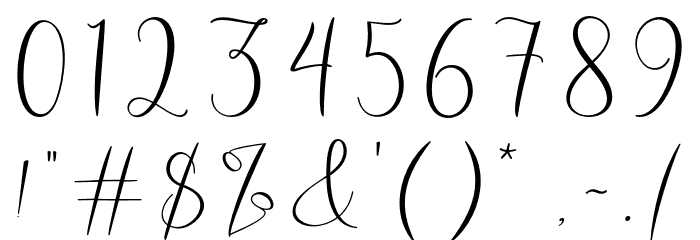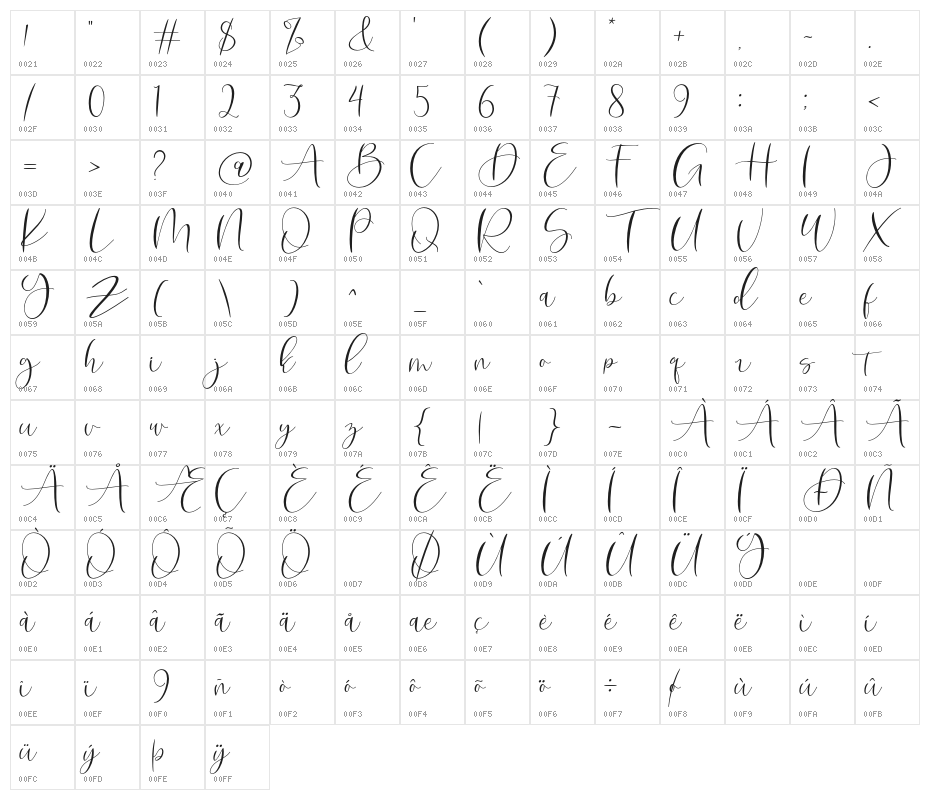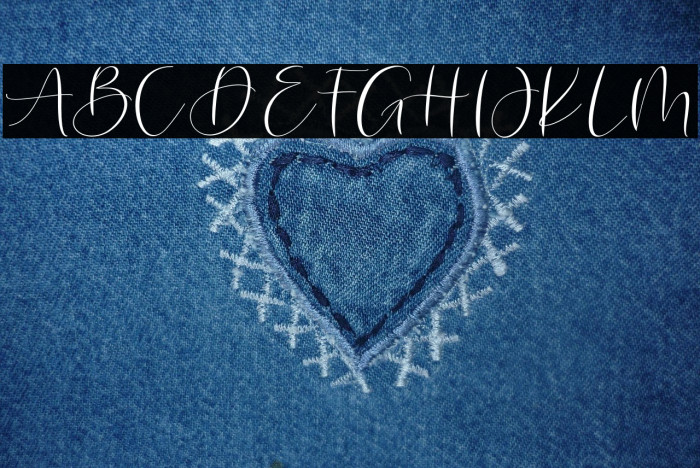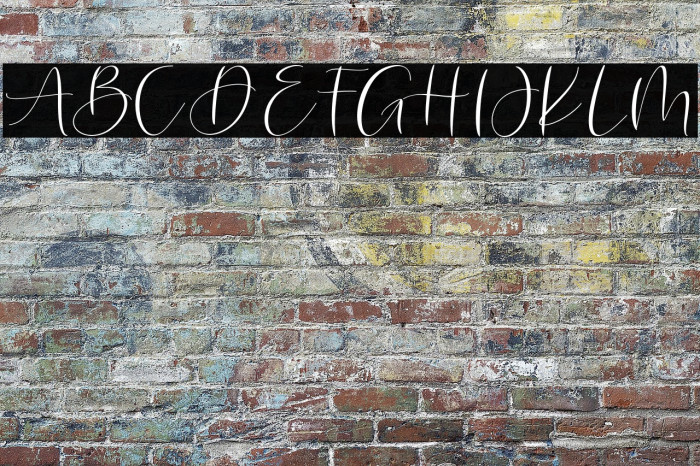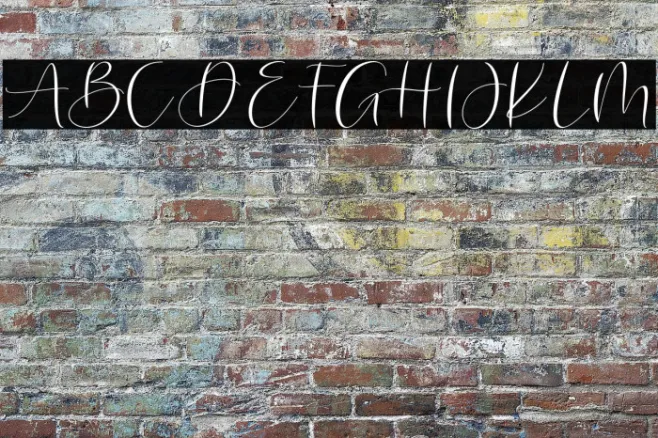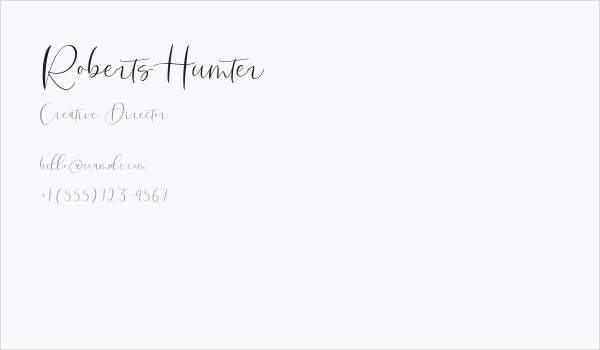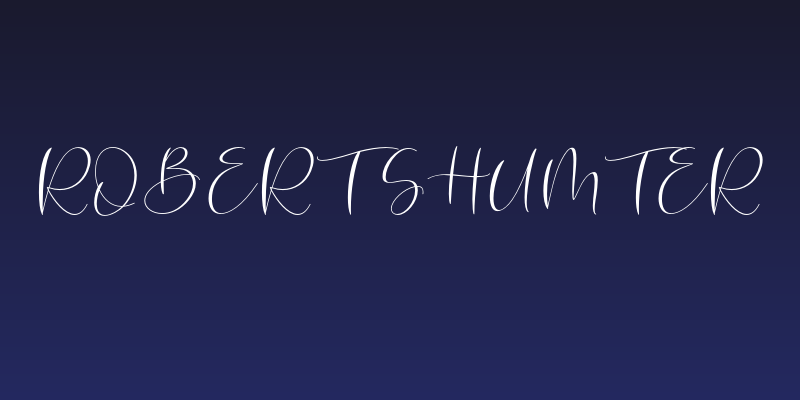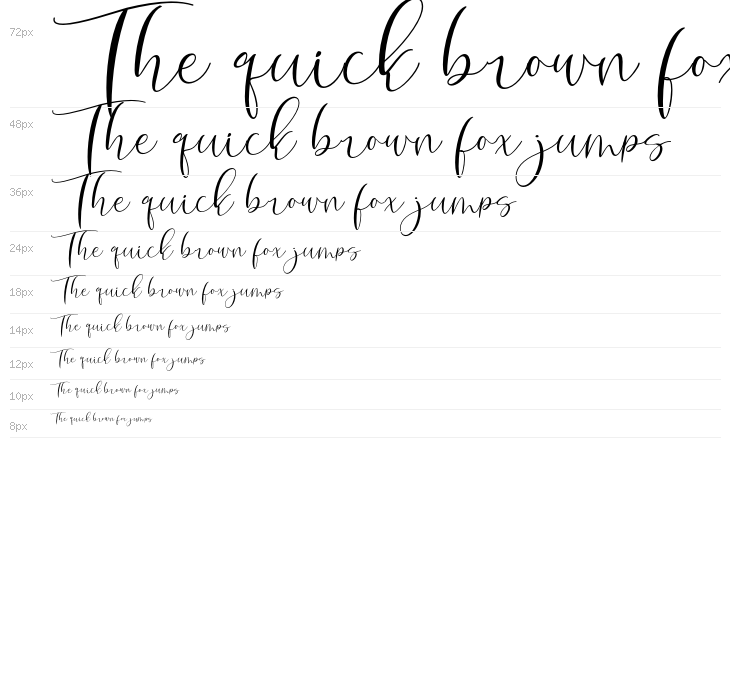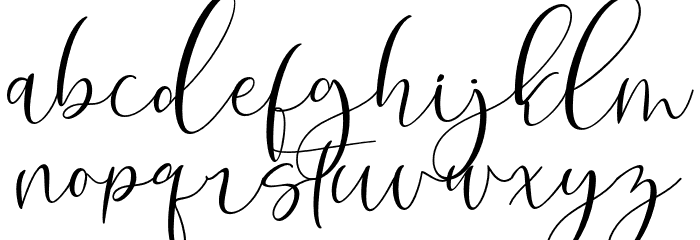
RobertsHumter Font
RobertsHumter Description
This font exudes elegance and fluidity, characterized by its cursive, handwritten style. The letters are gracefully connected, with a consistent flow that mimics natural handwriting. The uppercase letters are slightly more structured, while the lowercase letters exhibit a playful, artistic flair with varying stroke thickness. The numerals maintain the same fluid style, ensuring a cohesive look across all characters. Special characters are thoughtfully designed to complement the overall aesthetic, making this font ideal for projects that require a personal touch.
| Overall Style | Elegant, Artistic |
| Proposed Projects | Ideal for wedding invitations, greeting cards, personal branding, and artistic projects. |